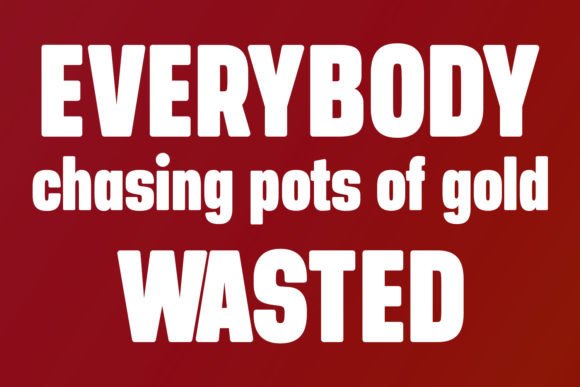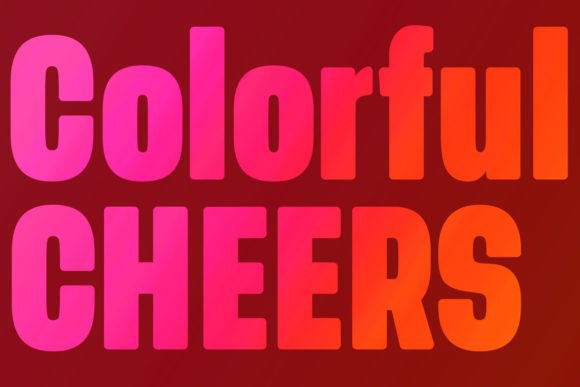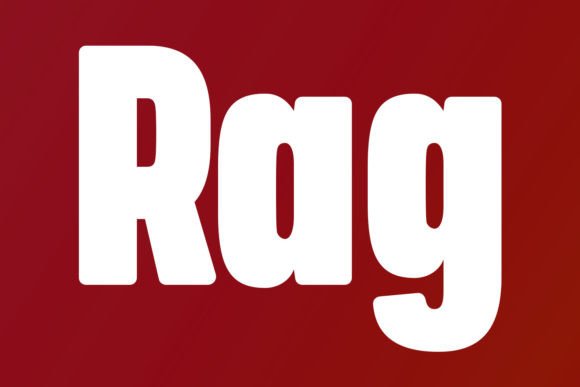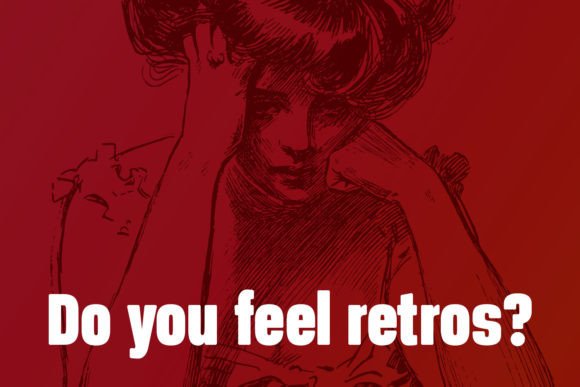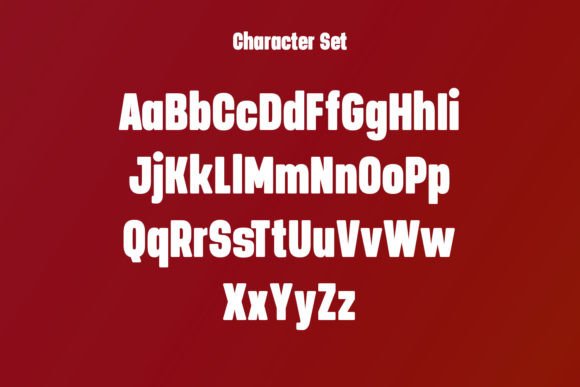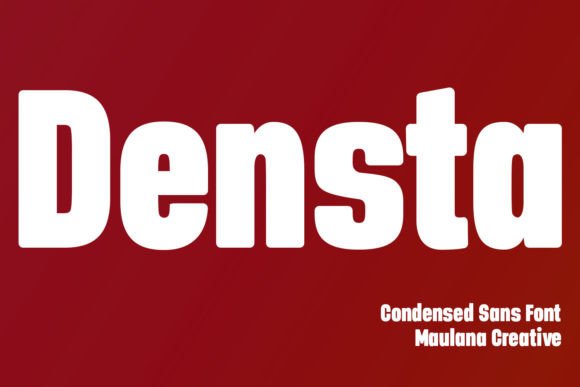
Introducing Densta Font: Elevate Your Designs with a Stylish Touch
In the world of design, typography plays a crucial role in conveying a message, expressing creativity, and capturing the audience’s attention. When it comes to creating stunning headlines and logotypes, the right font can make all the difference. This is where Densta Font comes into play – a cool condensed sans serif font designed to add a stylish touch to your projects. In this article, we’ll dive into the features and benefits of Densta Font, and explore how it can elevate your designs to the next level.
The Power of Densta Font
Densta Font is a carefully crafted typeface that exudes strength, confidence, and dynamism. Its condensed sans serif design makes it perfect for headlines, logotypes, and any project that requires a bold and eye-catching font. With Densta, you can add tons of character to your designs, making them stand out from the crowd. Whether you’re a designer, craftsperson, or simply a DIY enthusiast, Densta Font is an excellent choice for anyone looking to create visually stunning projects.
Key Features of Densta Font
- Condensed Sans Serif Design: Densta’s sleek and compact design makes it ideal for headlines, titles, and logotypes.
- Strong and Confident: The font’s bold and sturdy structure conveys a sense of confidence and authority.
- Dynamic and Versatile: Densta can be used in a wide range of projects, from modern and edgy to elegant and sophisticated.
- Easy to Read: Despite its condensed design, Densta remains highly legible, making it perfect for use in various design applications.
Benefits of Using Densta Font
So, why choose Densta Font for your next project? Here are just a few benefits you can expect:
- Save Time: With Densta, you can create stunning headlines and logotypes in no time, thanks to its easy-to-use design.
- Enhance Your Brand: Densta’s unique and stylish design can help you establish a strong brand identity that sets you apart from the competition.
- Boost Creativity: Densta’s versatility and dynamic nature can inspire your creativity and help you explore new design possibilities.
Who Can Benefit from Densta Font?
Densta Font is perfect for a wide range of designers, crafters, and DIY enthusiasts, including:
- Graphic Designers: Add a stylish touch to your brochures, posters, and business cards.
- Logotype and Branding Experts: Create memorable and impactful logos that make your brand shine.
- Crafters and Makers: Elevate your handmade projects, such as jewelry, crafts, or DIY products, with a professional and stylish font.
- Web Designers: Use Densta to create stunning website headers, titles, and other design elements.
In conclusion, Densta Font is an exceptional choice for anyone looking to add a stylish touch to their designs. Its unique blend of strength, confidence, and dynamism makes it perfect for headlines, logotypes, and various design projects. With Densta, you can elevate your designs, boost your creativity, and establish a strong brand identity. So why wait? Try Densta Font today and experience the power of stunning typography!